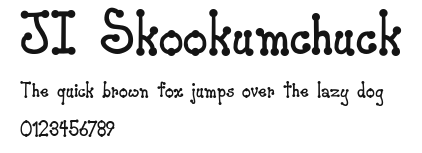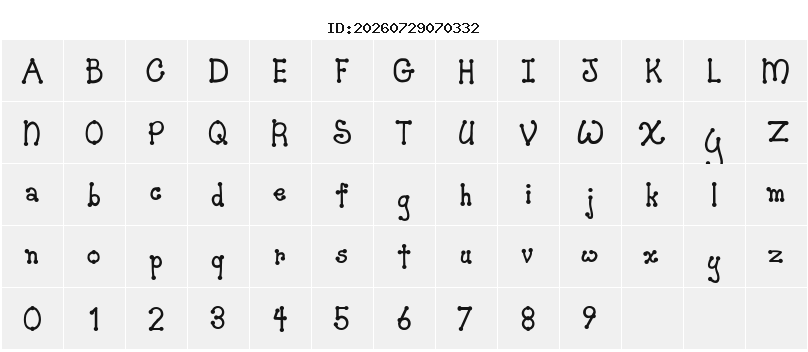
• Font Name: JI Skookumchuck
• Font Style: JI Skookumchuck
• Full Font Name: JI Skookumchuck
• PostScript Name: JISkookumchuck
• Character Count: 92
• Copyright: Copyright (c) Jeri Ingalls,, 2001. All rights reserved.
• Designer: Jeri Ingalls